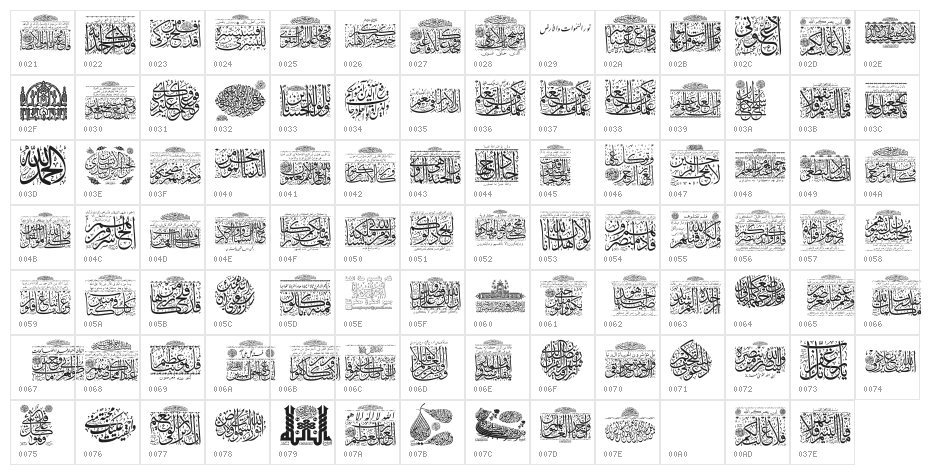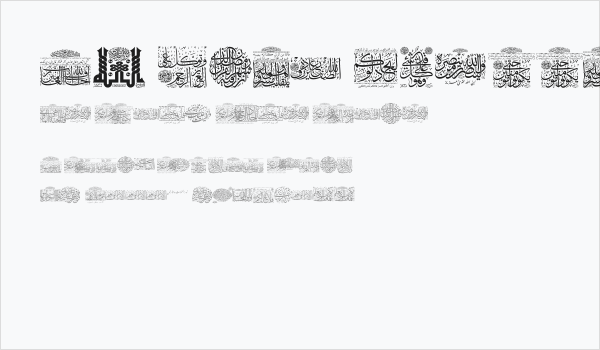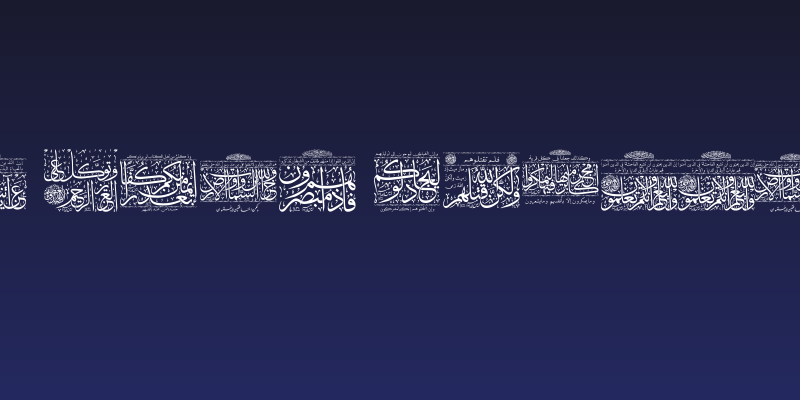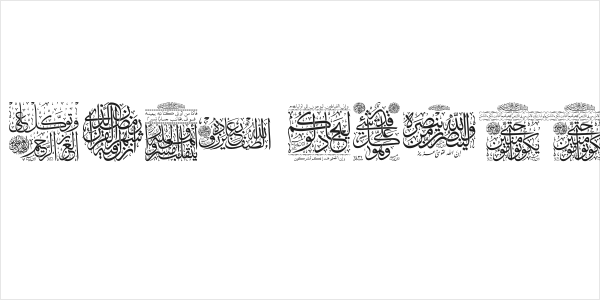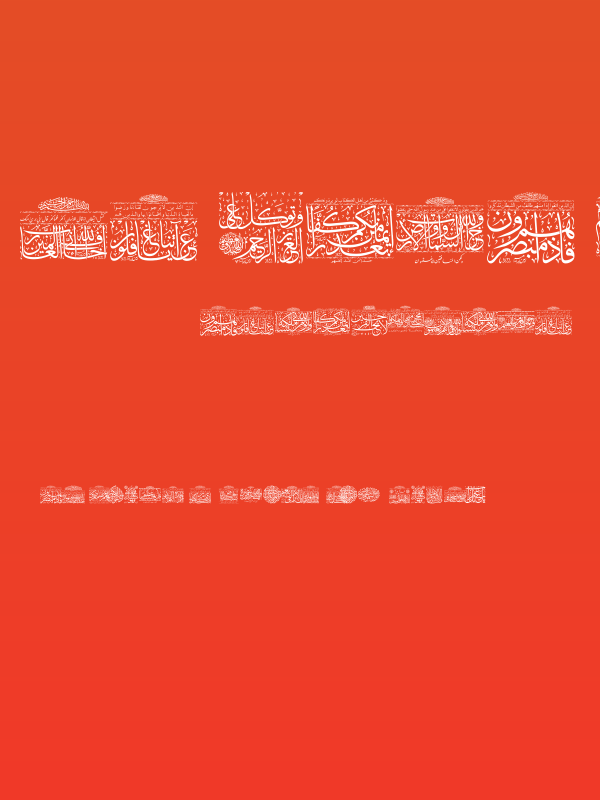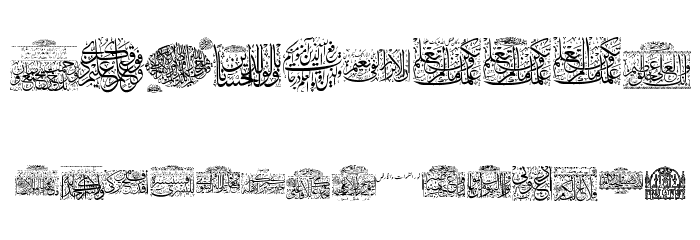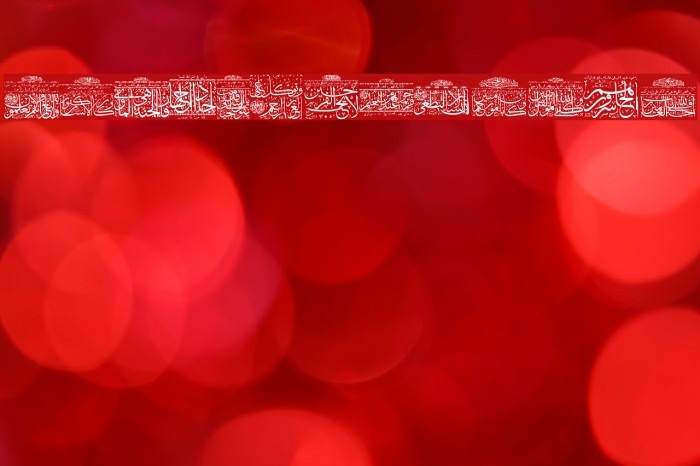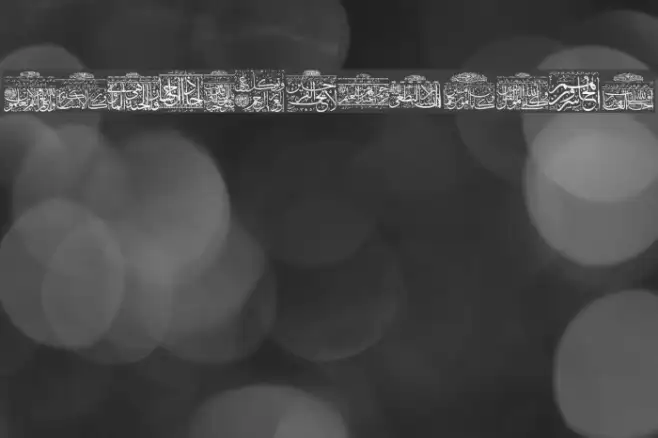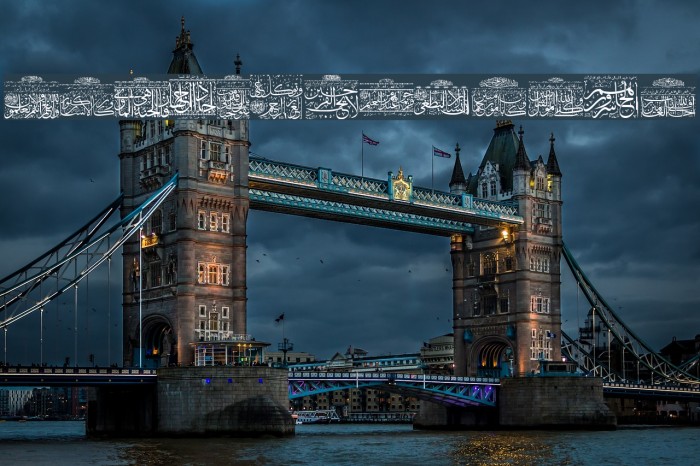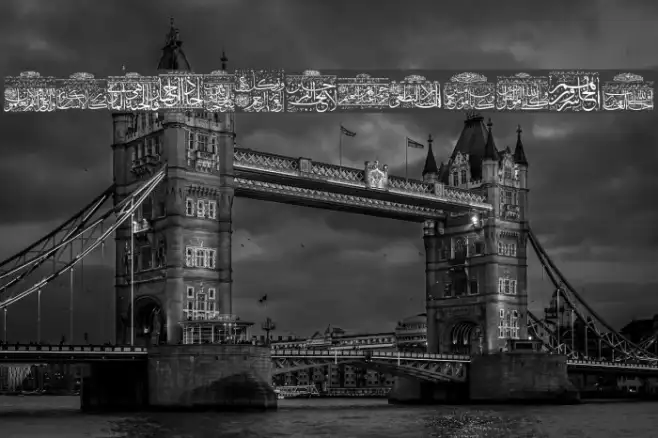
My Font Quraan 5 Font
My Font Quraan 5 Description
Highly ornate Arabic script with intricate decorative elements, featuring dense calligraphic strokes and elaborate flourishes, reminiscent of traditional manuscript styles used in religious texts.
| Overall Style | Classic, Decorative, Traditional |
| Use Case | Religious texts, Art pieces, Display titles |
| Proposed Projects | Religious manuscripts, ceremonial documents, historical reproductions, artistic posters. |